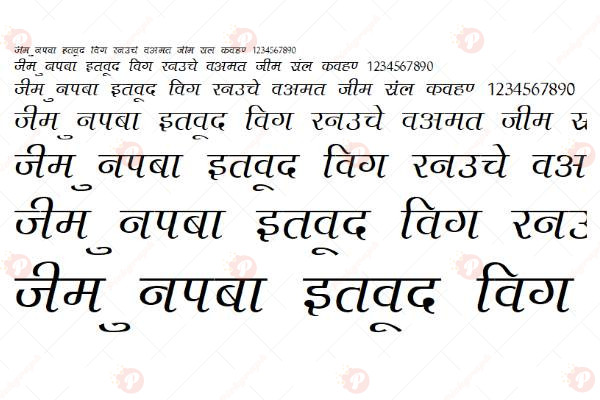
The Agra Font is a modern and elegant typeface crafted for professional and creative projects. Its clean curves and stylish appearance make it perfect for logos, branding, posters, invitations, product packaging, social media graphics, and editorial design.
Whether you are a graphic designer, business owner, or content creator, Agra will bring sophistication and clarity to your visual identity.
Style: Modern / Elegant Typeface
Perfect for: Branding, Logos, Invitations, Posters, Digital & Print Projects
| Optimum Size | Large (Display / Poster) |